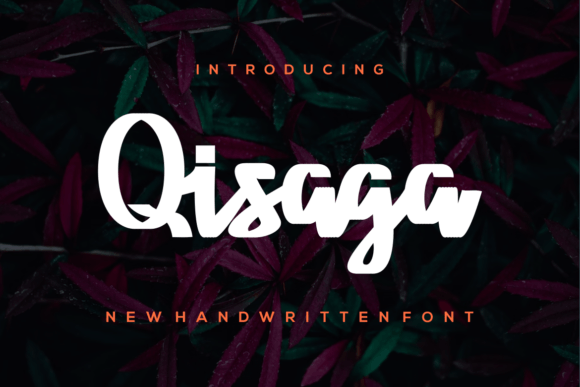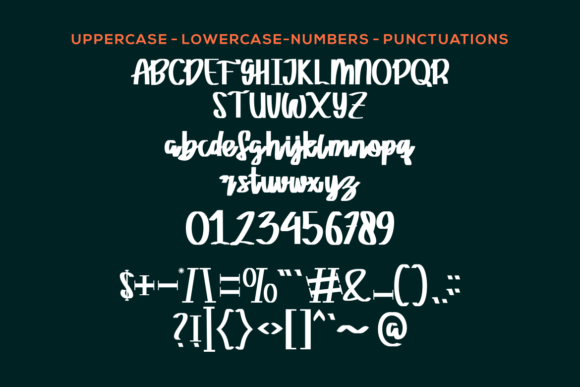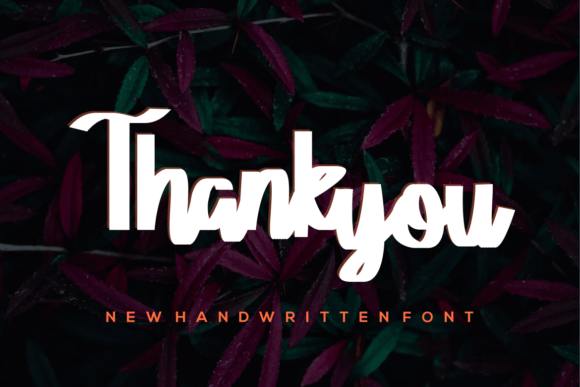
Introduction to Qisaga Font
Imagine you’re brainstorming ideas for your next creative project, and you stumble upon the perfect font to capture the essence of your vision. That moment of excitement is what designers live for. But, have you ever struggled to find the right font to elevate your project? Look no further, as we’re about to introduce you to the stunning Qisaga Font.
Perfectly suited for a wide range of projects, from signature and stationery to logo design and book covers, the Qisaga Font is a game-changer for any creative endeavor. With its bold and elegant handwriting style, this high-quality font adds a touch of sophistication to any design. And the best part? It’s available for free download, making it an invaluable resource for designers.
Key Features of Qisaga Font
- Unique Script Design: Qisaga Font features a beautiful, handwritten script style that’s perfect for creative projects, such as invitations, posters, and social media graphics.
- High-Quality Typography: With its high-resolution design, Qisaga Font ensures crisp and clear text, making it ideal for print and digital applications.
- Large Character Set: Qisaga Font includes a large character set, including uppercase and lowercase letters, numbers, and punctuation marks.
- Perfect for Design Projects: Qisaga Font is a versatile design resource that’s perfect for a variety of creative projects, from logos and branding to advertising and editorial content.
Honest Review: Qisaga Font
I recently stumbled upon the Qisaga Font and I must say, it’s been a valuable addition to my design resource library. As a designer, I’m always on the lookout for high-quality fonts that can elevate my creative projects.
- High-quality design with smooth lines and precise details
However, I do have a few minor quibbles. The Qisaga Font is a bit limited in its character set, which might be a problem for designers working on complex projects. Additionally, the font can be a bit finicky when it comes to font sizes and styles. ⚠️
Overall, I’d say the Qisaga Font is a solid choice for designers looking for a high-quality, free font to add to their design resource library. While it may have a few limitations, its benefits far outweigh its drawbacks. I’d definitely recommend giving it a try for your next creative project!
Transparent Background and High-Quality Design
Qisaga Font is perfect for designs that require a transparent background. Its high-quality design ensures that your text stands out from the background, making it ideal for creative projects that require a clean and modern look.
Tips for Getting the Most Out of Qisaga Font
To get the most out of Qisaga Font, experiment with different font sizes, colors, and styles. You can also combine it with other design elements, such as images and graphics, to create a unique and eye-catching design.
Qisaga Font is commonly used in logos, brochures, business cards, and other marketing materials. Its clean and modern design makes it perfect for a wide range of creative projects, from corporate branding to personal design projects.